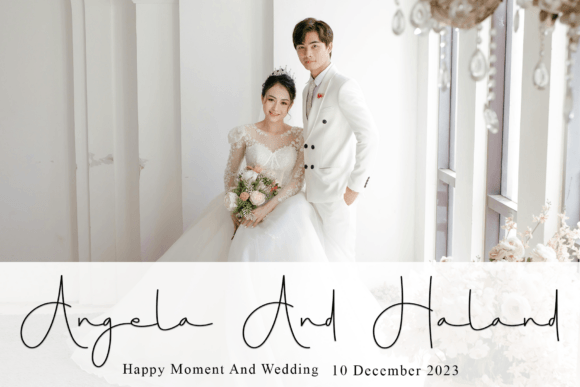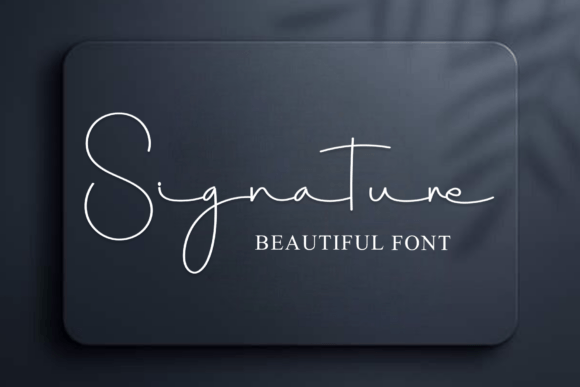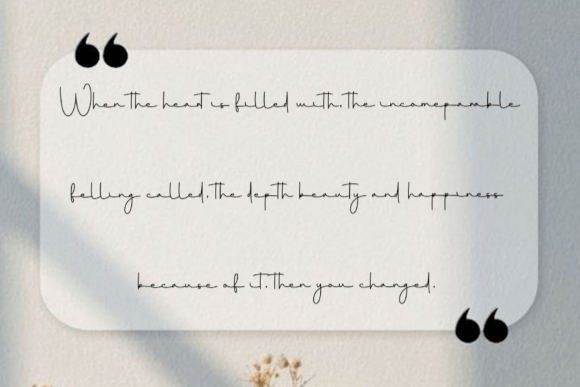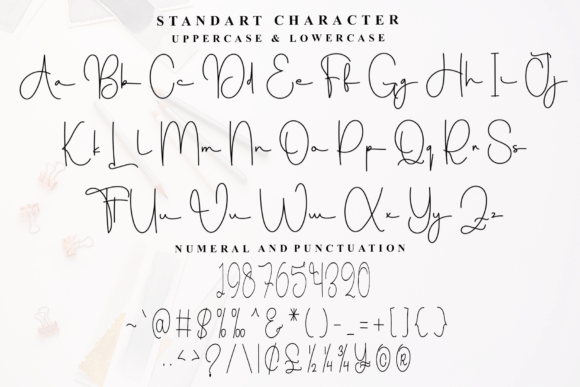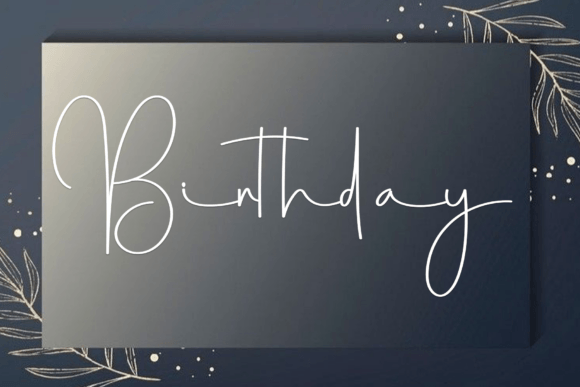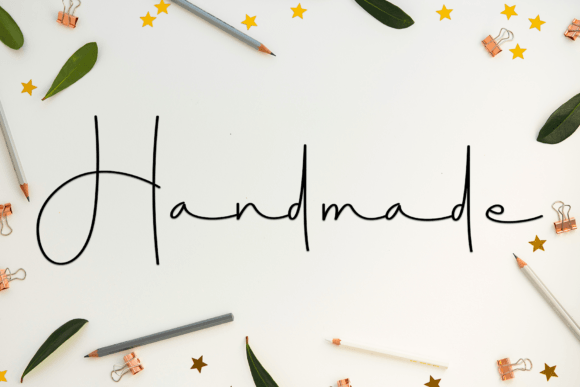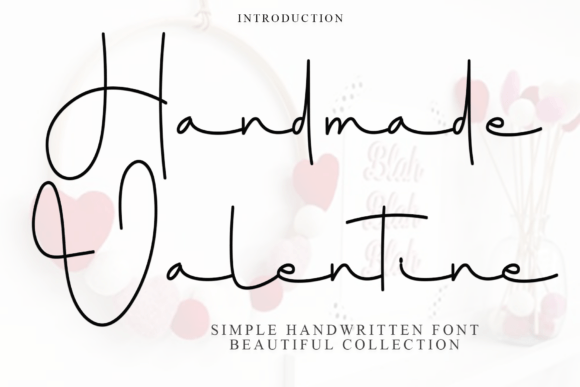
Introducing Handmade Valentine Font: The Perfect Choice for Your Valentine’s Day Projects
Are you looking for a unique and elegant font to make your Valentine’s Day projects stand out? Look no further than the Handmade Valentine Font! This beautiful, flowing handwritten font is described by an elegant touch, making it perfect for a variety of designs, from romantic gifts to festive decorations.
What Makes Handmade Valentine Font So Special?
The Handmade Valentine Font is a one-of-a-kind typeface that exudes a sense of sophistication and charm. Its incredibly distinct and timeless style is sure to capture the hearts of designers, crafters, and anyone looking to create spectacular designs for Valentine’s Day. With its elegant touch, this font is perfect for adding a touch of romance and whimsy to your projects.
Features of Handmade Valentine Font
- Flowing Handwritten Style: The Handmade Valentine Font features a beautiful, flowing handwritten style that is perfect for creating romantic and elegant designs.
- Elegant Touch: This font is described by an elegant touch, making it perfect for a variety of designs, from wedding invitations to Valentine’s Day cards.
- Distinct and Timeless Style: The Handmade Valentine Font has an incredibly distinct and timeless style that is sure to make your designs stand out.
- Perfect for a Variety of Projects: This font is perfect for a variety of projects, including Valentine’s Day cards, wedding invitations, DIY crafts, and more.
Uses for Handmade Valentine Font
The Handmade Valentine Font is perfect for a variety of projects, including:
- Valentine’s Day Cards: Create beautiful and romantic Valentine’s Day cards with this stunning font.
- Wedding Invitations: Use the Handmade Valentine Font to create elegant and sophisticated wedding invitations.
- DIY Crafts: Add a touch of elegance to your DIY crafts, such as scrapbooking, journaling, and more.
- Social Media Graphics: Use this font to create stunning social media graphics, such as Valentine’s Day-themed posts and stories.
Why Choose Handmade Valentine Font?
There are many reasons to choose the Handmade Valentine Font for your Valentine’s Day projects. Here are just a few:
- Unique and Elegant: This font is truly one-of-a-kind, with an elegant touch that will make your designs stand out.
- Perfect for Designers and Crafters: This font is perfect for designers and crafters who want to add a touch of elegance and sophistication to their projects.
Tips for Using Handmade Valentine Font
Here are a few tips for using the Handmade Valentine Font:
- Use it with Other Fonts: Experiment with pairing the Handmade Valentine Font with other fonts to create unique and interesting designs.
- Add Decorations: Add decorations, such as hearts and flowers, to your designs to make them more festive and fun.
- Experiment with Colors: Try out different colors and color combinations to find the perfect look for your designs.
The Handmade Valentine Font is a beautiful and elegant font that is perfect for a variety of Valentine’s Day projects. With its flowing handwritten style, elegant touch, and distinct and timeless style, this font is sure to make your designs stand out. Whether you’re a designer or crafter, this font is a must-have for anyone looking to create spectacular designs for Valentine’s Day.